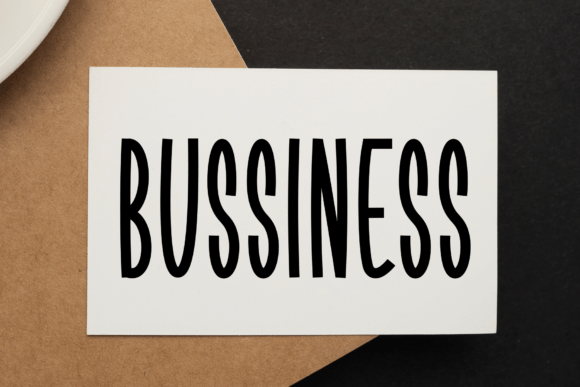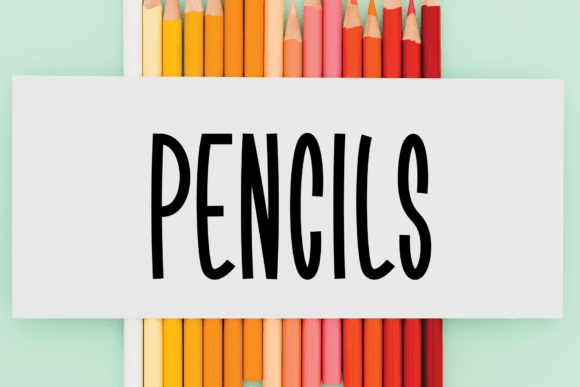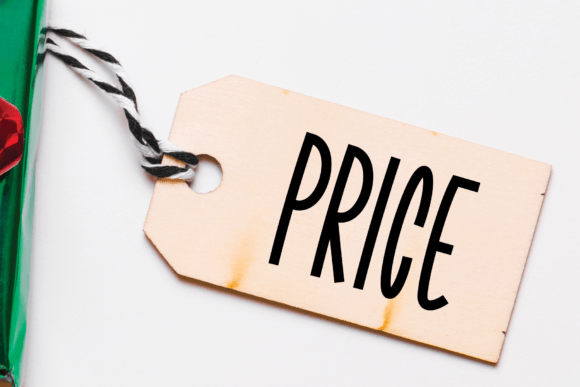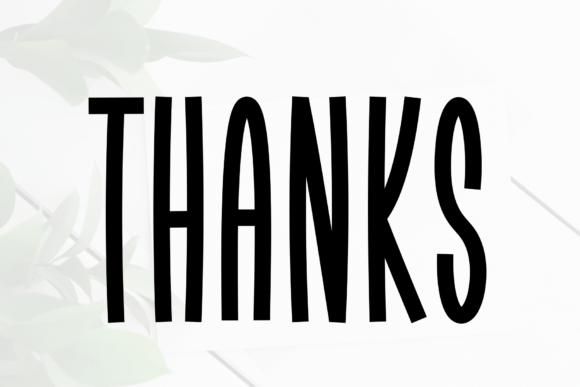
The Perfect Loaf: Discovering the Fresh Bread Font
I’ll never forget the time I was working on a branding project for a bakery, and I just couldn’t find the right font to capture the warmth and coziness of freshly baked goods. The client wanted something that felt luxurious and elegant, but still casual and approachable. That’s when I stumbled upon the Fresh Bread font, and it was like finding the perfect loaf – it checked all the boxes! 🍞
As a designer, I’m always on the lookout for fonts that can elevate my work and make it stand out. Here’s what I love about Fresh Bread:
- ✨ Relaxed and sporty feel: Fresh Bread has a unique, laid-back vibe that’s perfect for branding, logos, and marketing materials.
- ✅ Elegant yet casual: This font walks the fine line between sophistication and approachability, making it ideal for a wide range of design projects.
- 💕 Handwritten charm: The marker-like quality of Fresh Bread adds a touch of personality and whimsy to any design.
Of course, no font is perfect, and Fresh Bread has a few quirks to keep in mind:
- 🤔 Limited use in very formal contexts: While Fresh Bread is elegant, it’s still a casual font at heart. It might not be the best choice for very formal or traditional designs.
- ⚠️ Some glyphs may require adjustment: Depending on the design, you might need to tweak certain glyphs to get the perfect fit.
- Experiment with OpenType features like ligatures and stylistic alternates to add visual interest.
The Story Behind Fresh Bread
Fresh Bread was designed with the intention of capturing the warmth and comfort of freshly baked goods. The designer wanted to create a font that felt like a warm hug – elegant, yet approachable and casual. The result is a font that’s perfect for a wide range of design projects, from branding and marketing to wedding designs and fashion.
Q: What makes Fresh Bread so special?
A: Fresh Bread’s unique blend of elegance and casualness makes it perfect for a wide range of design projects. Its handwritten quality adds a touch of personality and whimsy to any design.
Q: Is Fresh Bread suitable for body text?
A: While Fresh Bread is a beautiful font, it’s best suited for headlines, titles, and short paragraphs. For longer body text, you may want to choose a font with better readability.